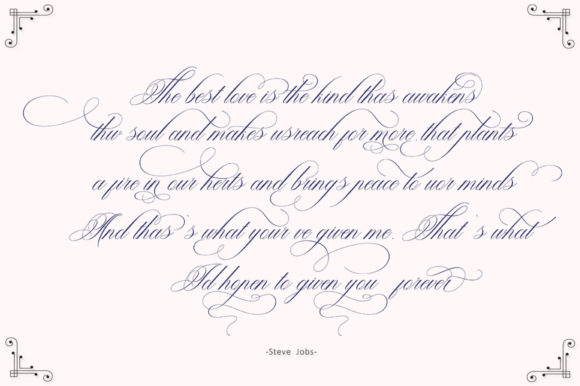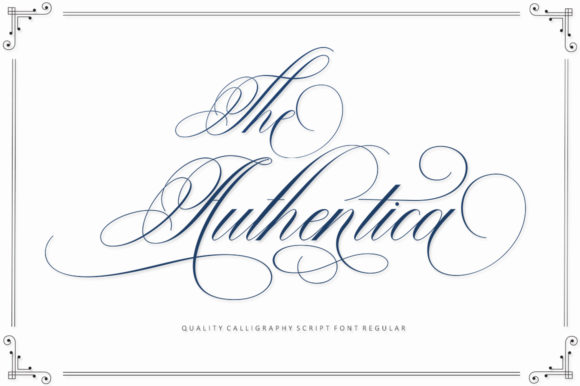
Authentica Font
db-ku.com - Script & Handwritten -- Authentica feels equally charming and elegant. This stunning handwritten font is a stylish homage to classic calligraphy. It features a varying baseline, smooth lines, gorgeous glyphs and stunning alternates.